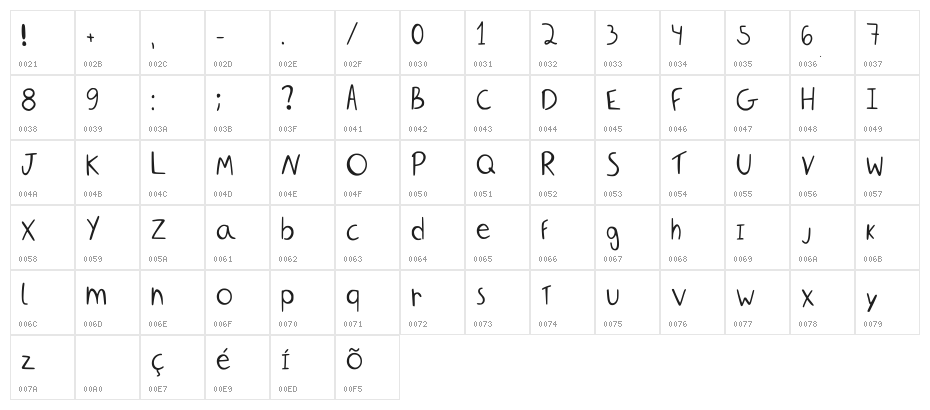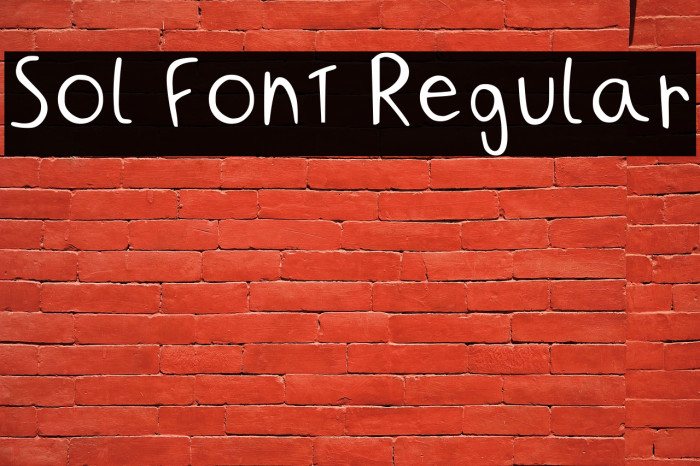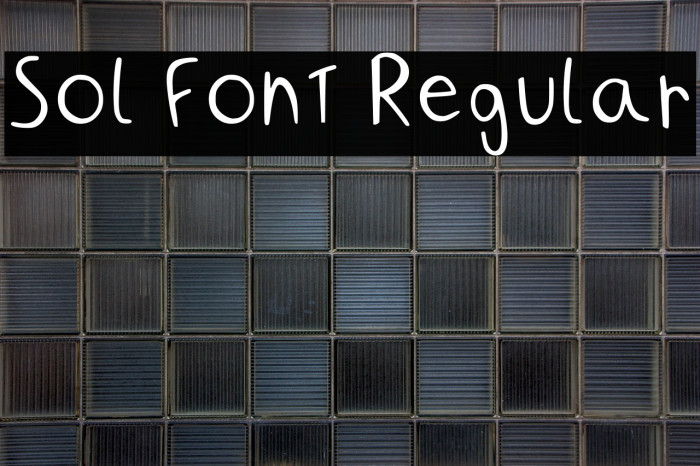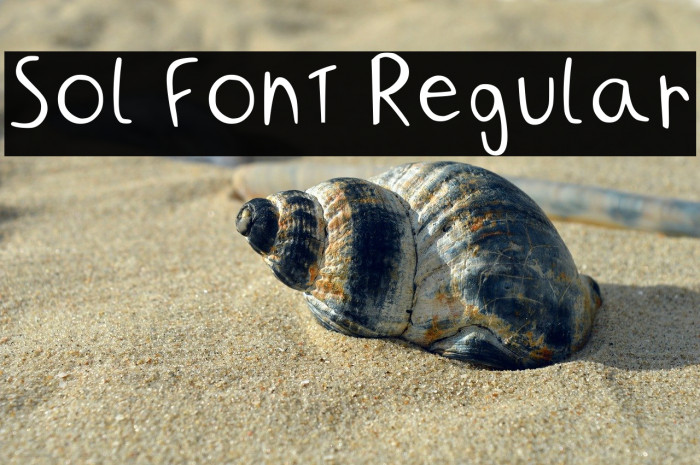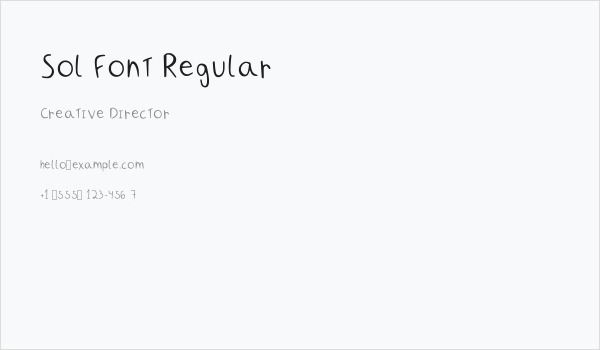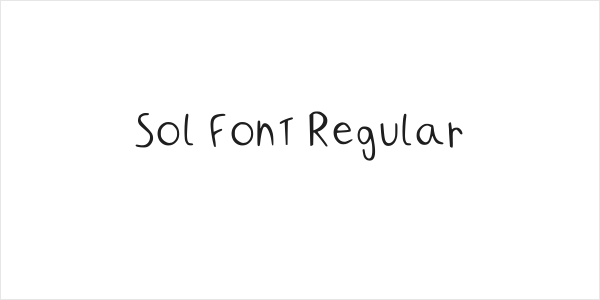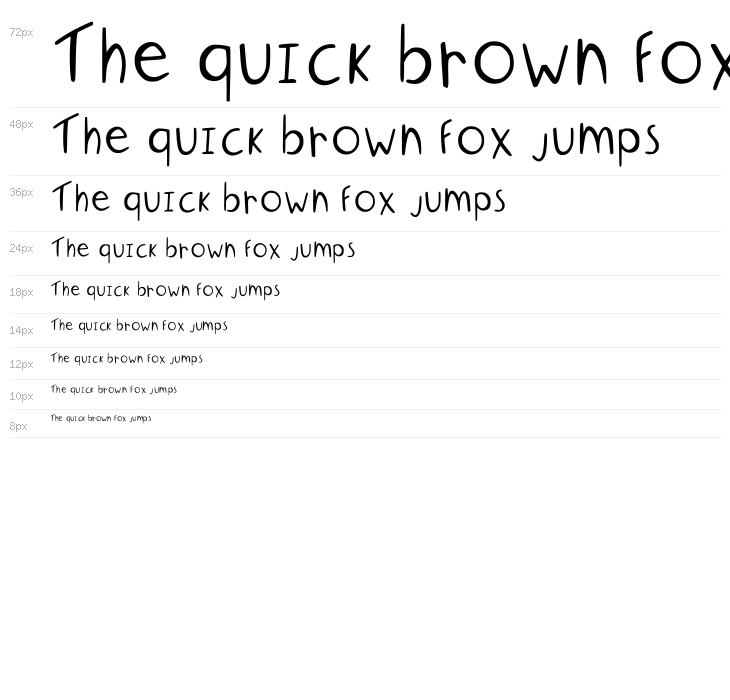
Sol Font Regular Font
Sol Font Regular Description
A playful, handwritten font with irregular strokes and a casual appearance.
| Overall Style | Casual |
| Use Case | Headlines, Informal text |
| Proposed Projects | Children's books, casual invitations, greeting cards. |